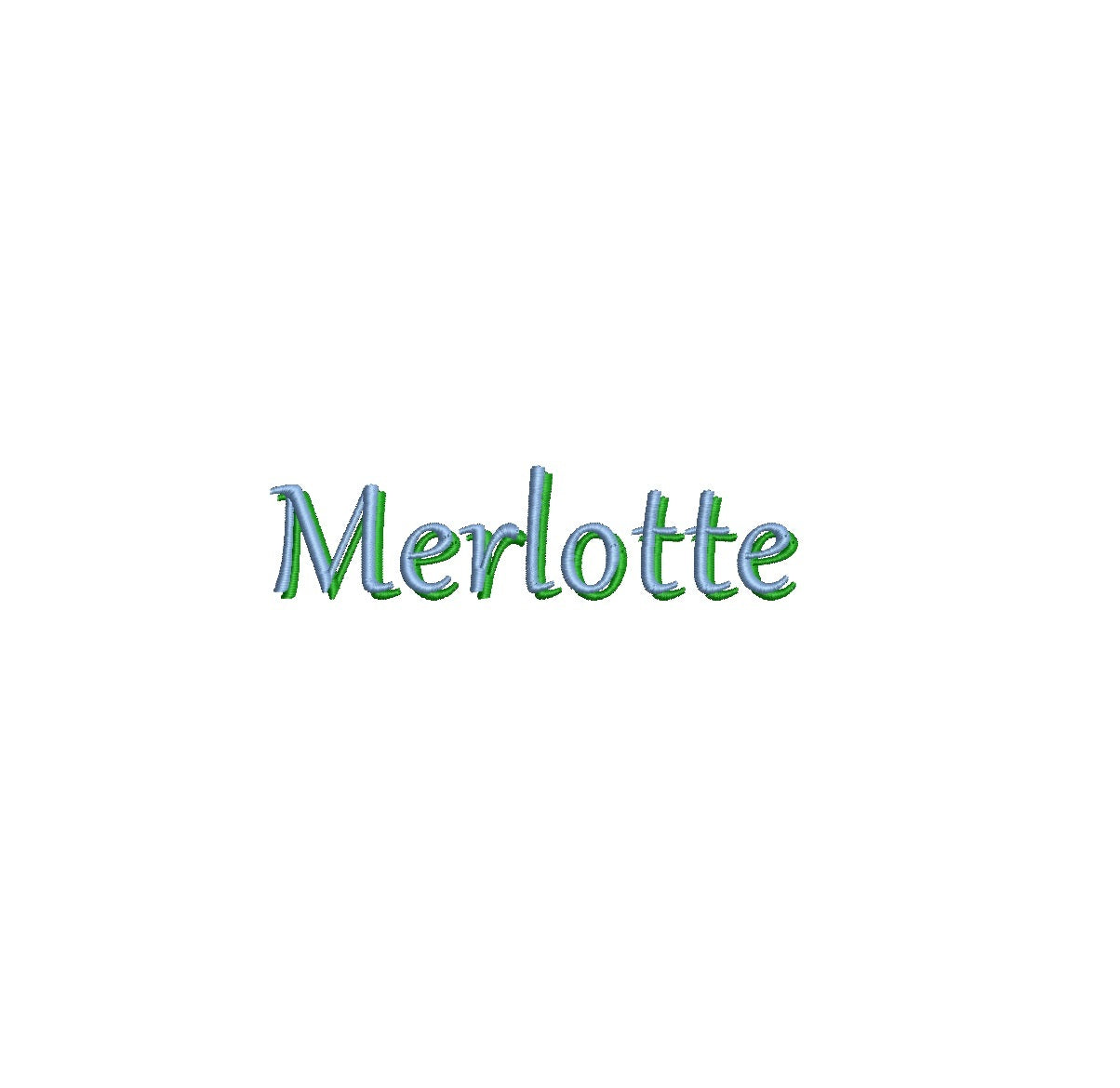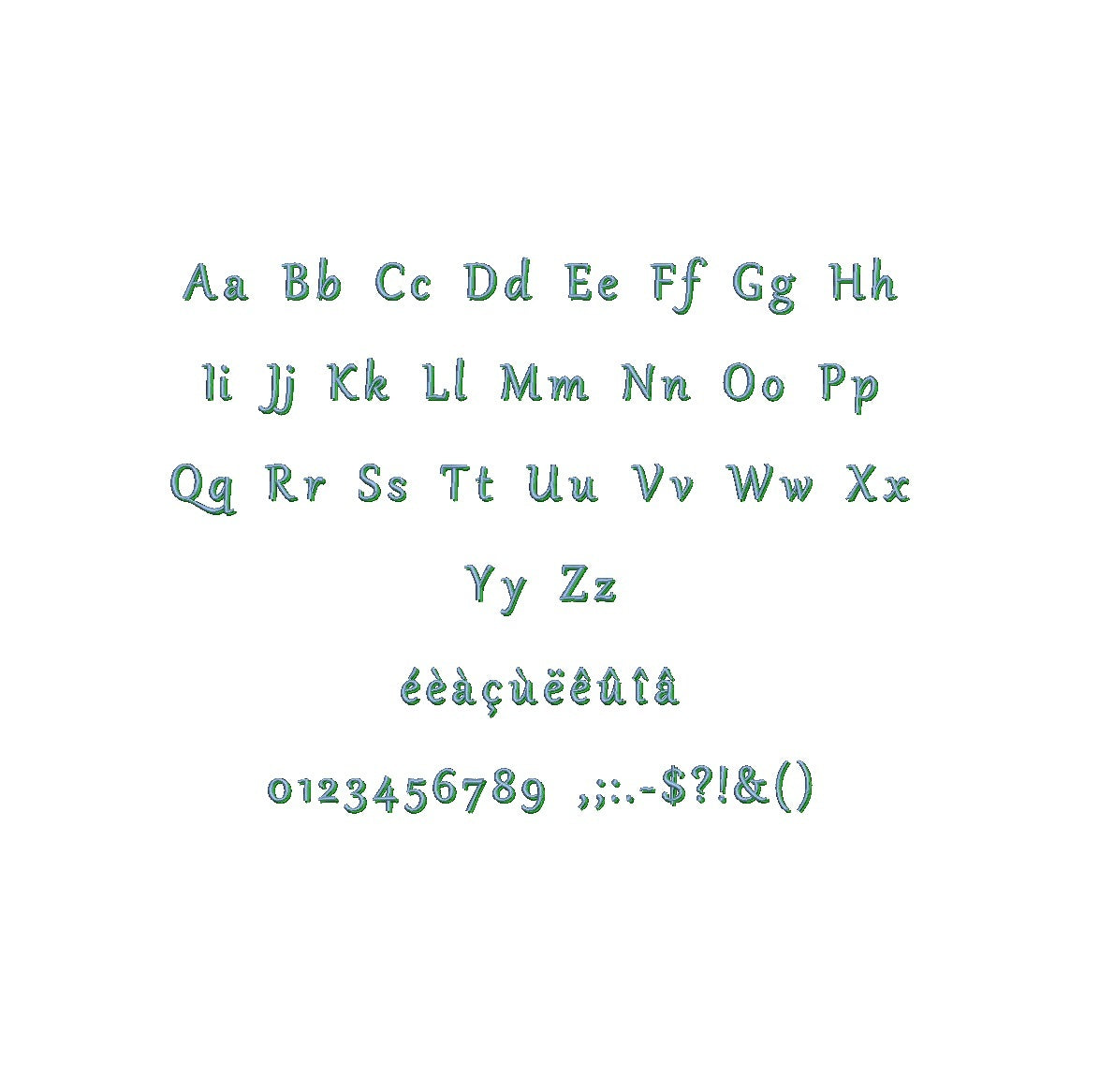
Elevate your designs with the captivating Merlotte Shadow ESA font. Fully compatible with Wilcom Studio e4.5.6 and Hatch 3 versions and up, this font infuses your projects with a sense of mystery and bold sophistication. The font's intricate shadows and dynamic lines create a captivating visual impact that sets your designs apart. Streamline your creative process and achieve flawless results by utilizing this font with industry-leading software. Elevate your projects with the compatibility of Merlotte Shadow ESA font and craft visuals that resonate with intrigue. Embrace creativity and elegance for your design journey today!